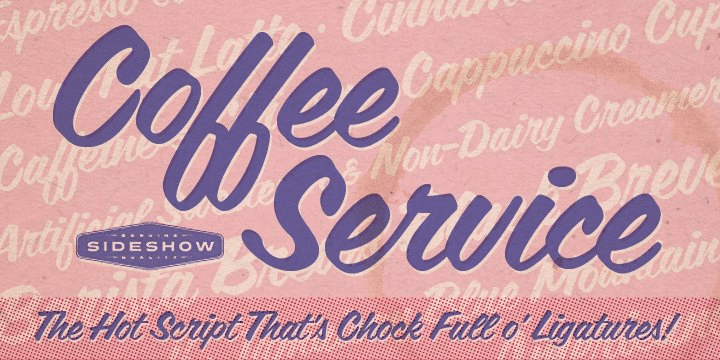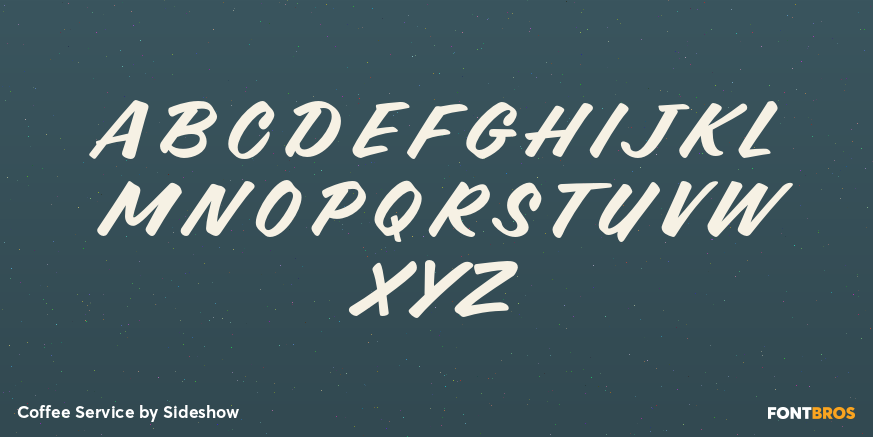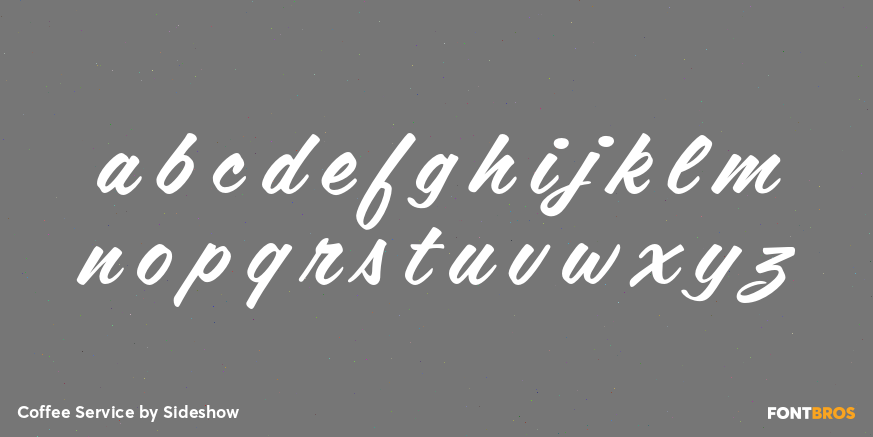
Coffee Service
Whether you prefer Drip or Automatic, there is nothing quite like quality Coffee Service! This speedy retro script has a generous x-height and is Chock Full 'o OpenType automatic ligatures so it sets perfectly every time! One sip and you'll agree, there's nothing finer than Coffee Service!